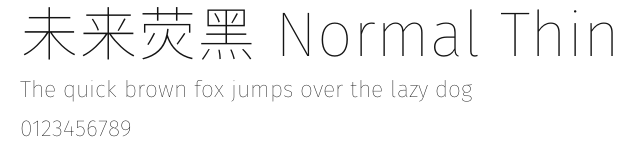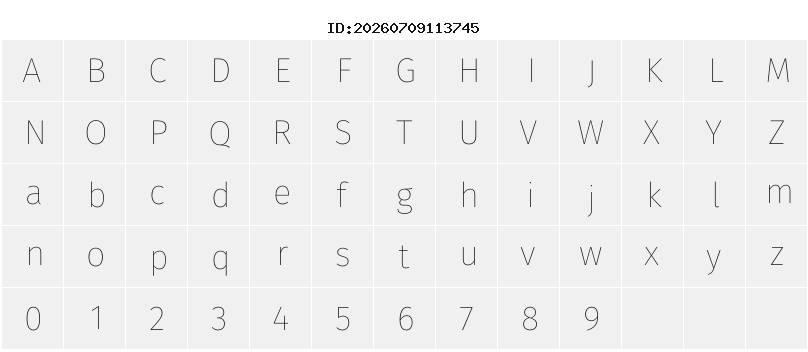
• Designer: Ryoko NISHIZUKA 西塚涼子 (kana, bopomofo & ideographs); Paul D. Hunt (Latin, Greek & Cyrillic); Sandoll Communications 산돌커뮤니케이션, Soo-young JANG 장수영 & Joo-yeon KANG 강주연 (hangul elements, letters & syllables); Glow Sans is built by Celestial Phineas.
未来荧黑 Normal Thin.otf is a modern, elegant sans-serif font designed for ultimate readability and visual harmony. Perfect for branding, headlines, web design, and print materials.